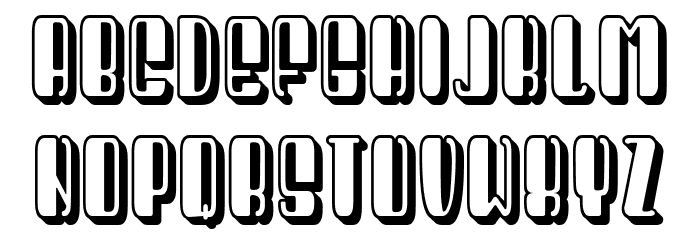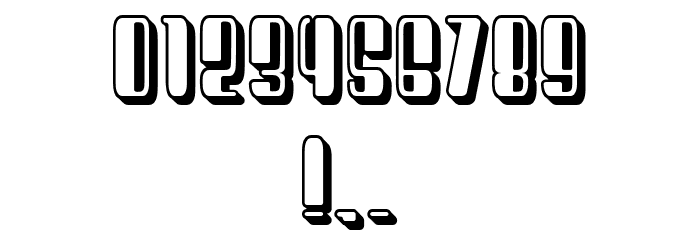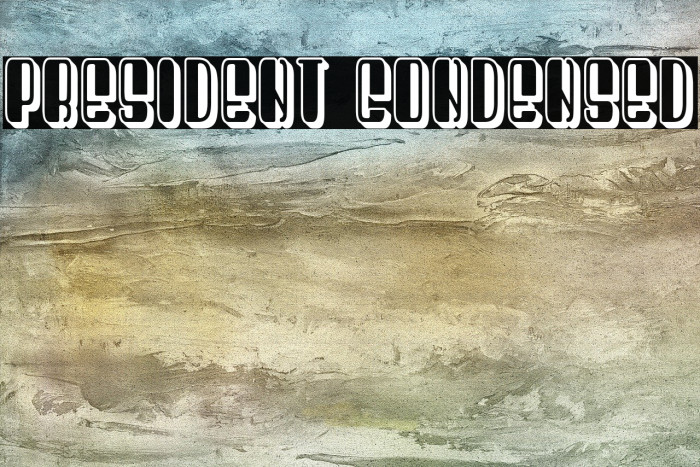
President Condensed Font
This font features a bold, condensed style with a three-dimensional effect created by a shadowed outline. The uppercase letters are uniform in height, with a geometric and blocky appearance that gives a strong, impactful look. The numbers and special characters follow the same design principles, maintaining consistency across the set. The font's design is reminiscent of vintage signage, offering a sense of nostalgia while remaining modern and eye-catching. Its boldness and unique style make it suitable for attention-grabbing headlines and titles.
A bold, condensed font with a 3D shadow effect, ideal for impactful headlines.
- Proposed Projects: Perfect for retro-themed posters, branding, and signage that require a strong visual impact.
- Overall Style: Vintage